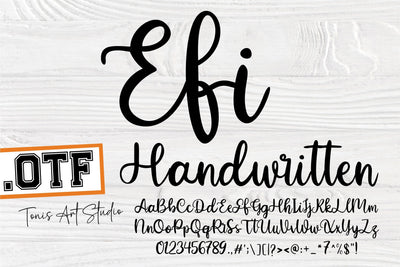
Efi Handwritten Script Font | Modern Calligraphy | OTF Font
Introducing Efi Handwritten, a delicate and elegant script font, perfect for a wide range of design projects. Its handcrafted style brings a organic feel to everything from wedding invitations to social media posts. Created with care, this modern handwritten font is available in OTF format for easy use across all platforms. Ideal for invitations, logos, stationery, and craft projects, Efi Handwritten offers a warm, charming look to elevate your designs.
- Full set of uppercase and lowercase letters
- Includes numbers and punctuation